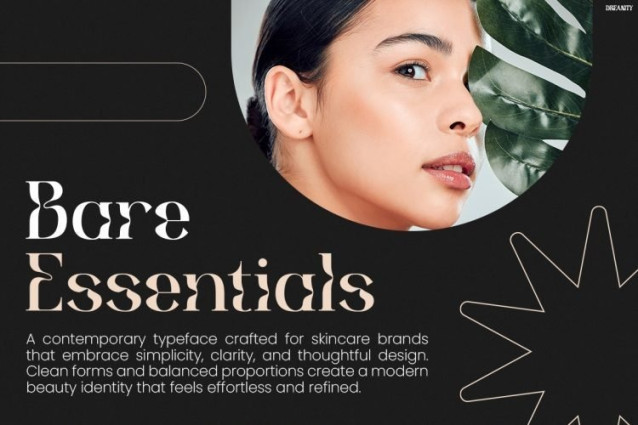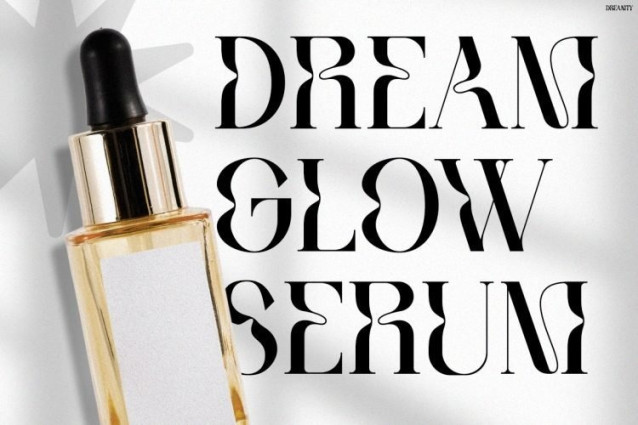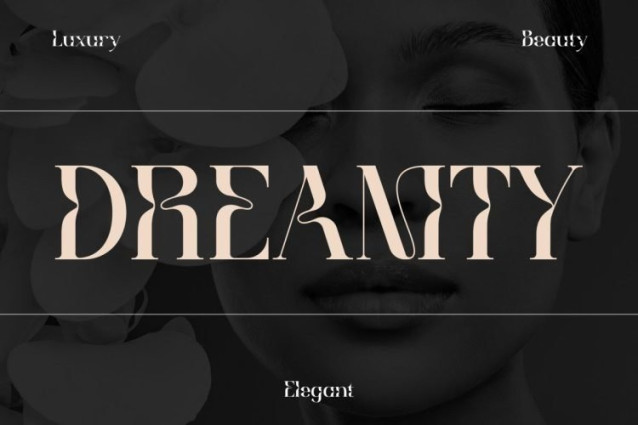
Dreamty Font
Dreamty Font a refined luxury aesthetic through its artistic high-contrast letterforms, graceful curves, and fashion-inspired details. Furthermore, the font blends classic elegance with modern minimalism, creating a premium look that instantly elevates any design. Because of its distinctive decorative shapes and sophisticated structure, Dreamty captures attention while maintaining a polished and upscale appearance. In addition, the font brings a sense of exclusivity and glamour to headlines, branding, packaging, and social media content. As a result, every design feels more luxurious, stylish, and visually unforgettable.
Moreover, Dreamty is carefully crafted for brands that want to communicate beauty, confidence, and prestige. Whether you are creating skincare packaging, cosmetic campaigns, fashion editorials, or Instagram promotions, this font adds a refined character that enhances your visual identity. Therefore, Dreamty is an excellent choice for designers seeking typography that feels timeless, fashionable, and premium.